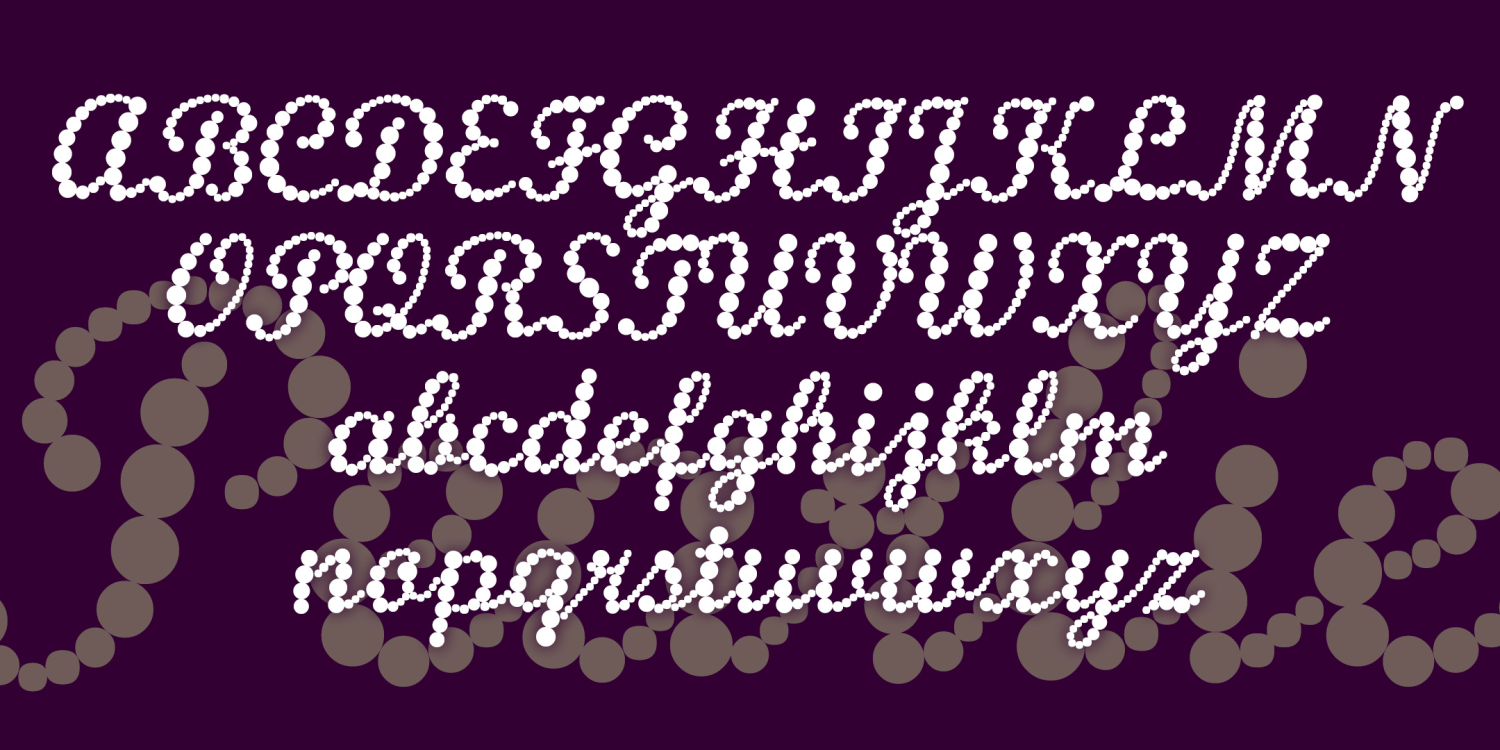
Pearlie
About Pearlie
PEARLIE is a script font designed to look like a string of graduated pearls. I made this because I wanted something like this for a Debutante Ball. The basic letter forms were inspired by classic script fonts. Links without kerning; looks especially good…